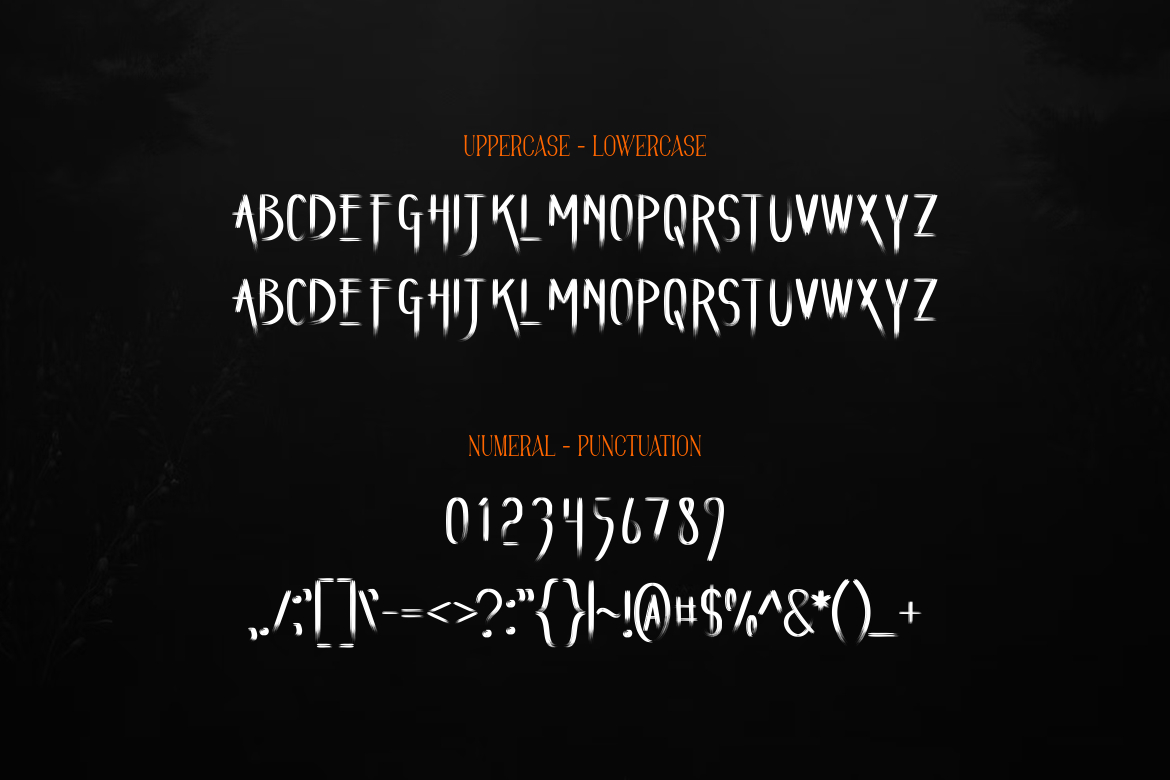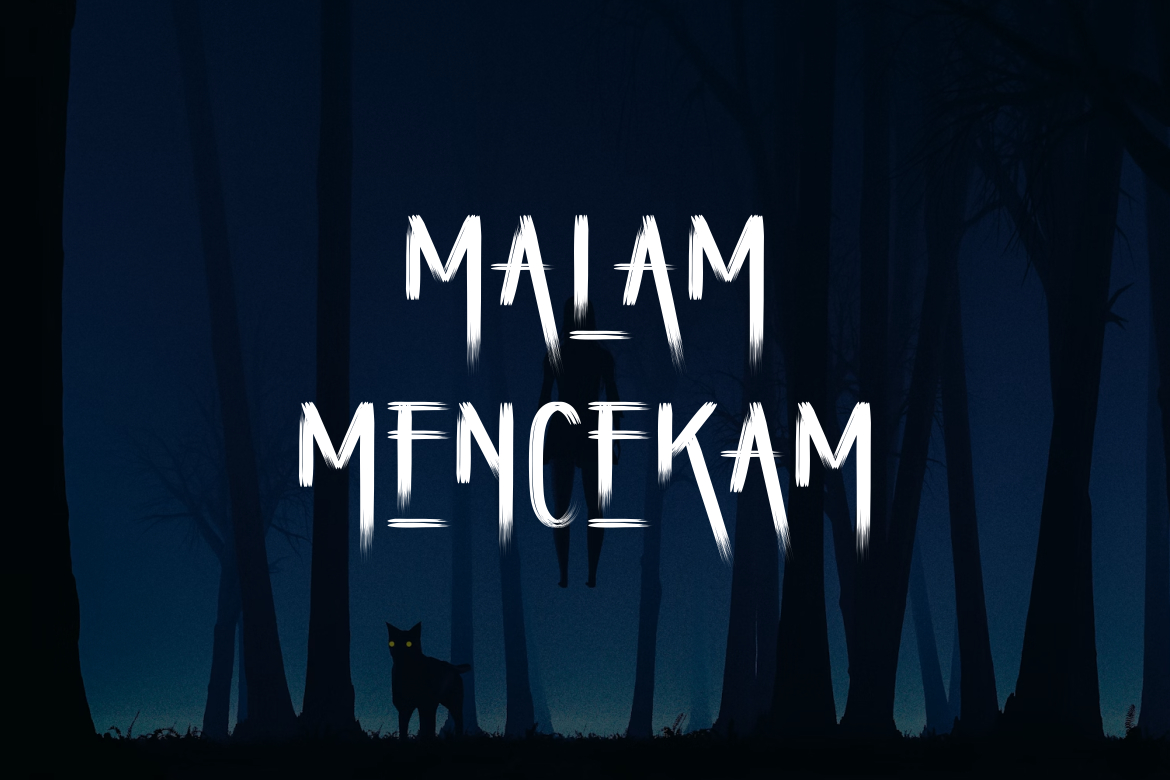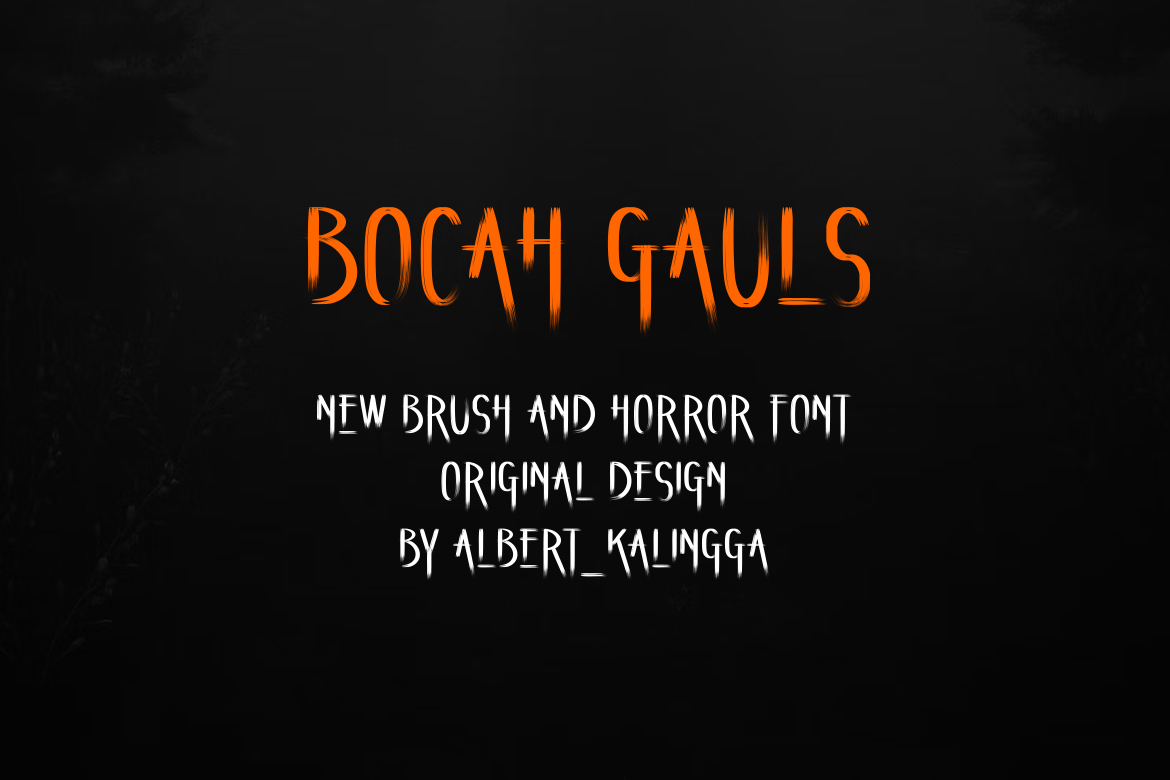
About Bocah Gauls Font
Unleash the spine-tingling vibes with “Bocah Gauls,” a brush horror font that brings a touch of macabre to your designs. The gritty strokes and ominous aesthetic of Bocah Gauls create an atmosphere of suspense and horror, making it perfect for haunted house flyers, Halloween posters, or any project where you want to infuse an element of fear. Embrace the dark side of design with this uniquely chilling typeface.